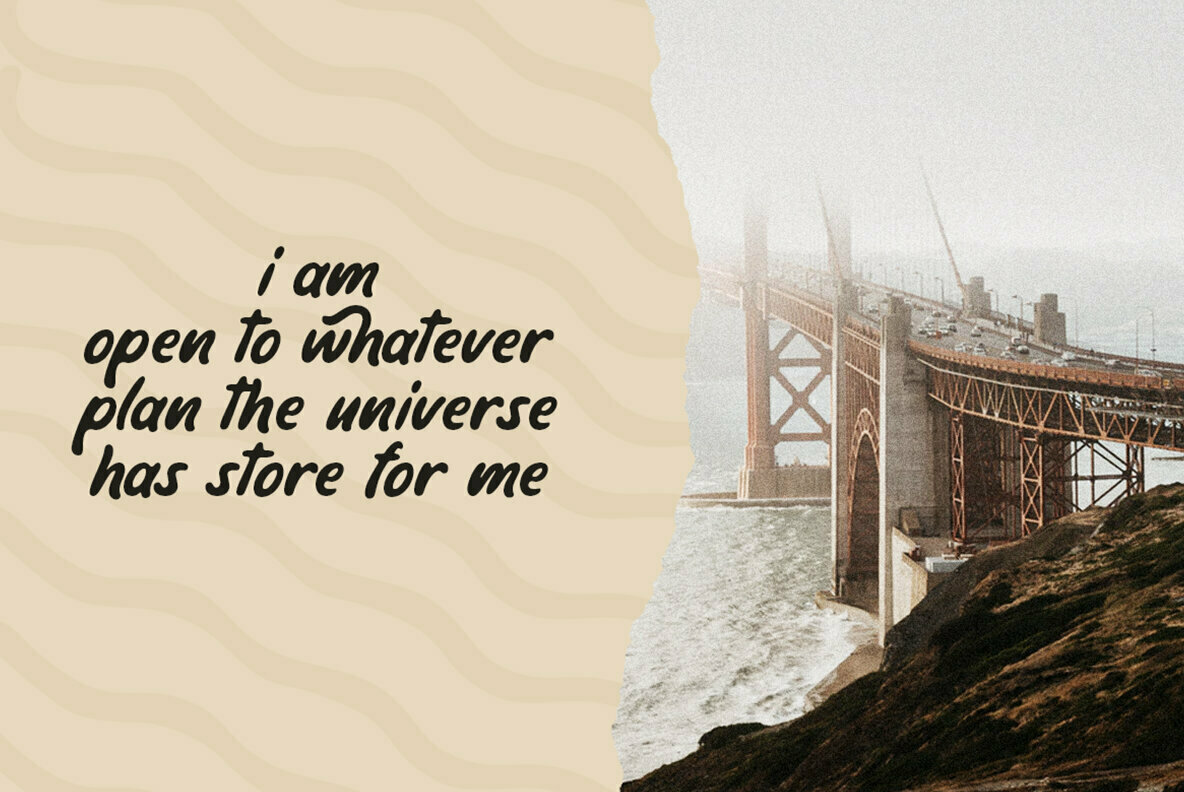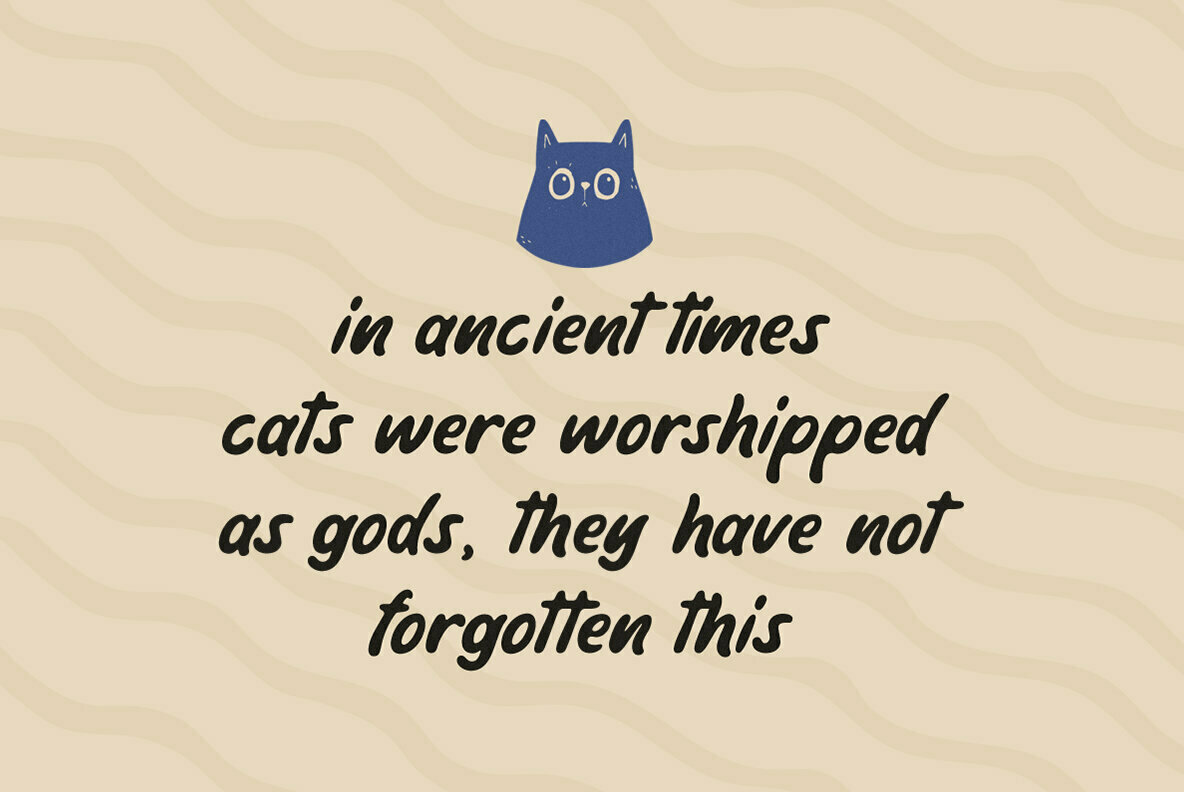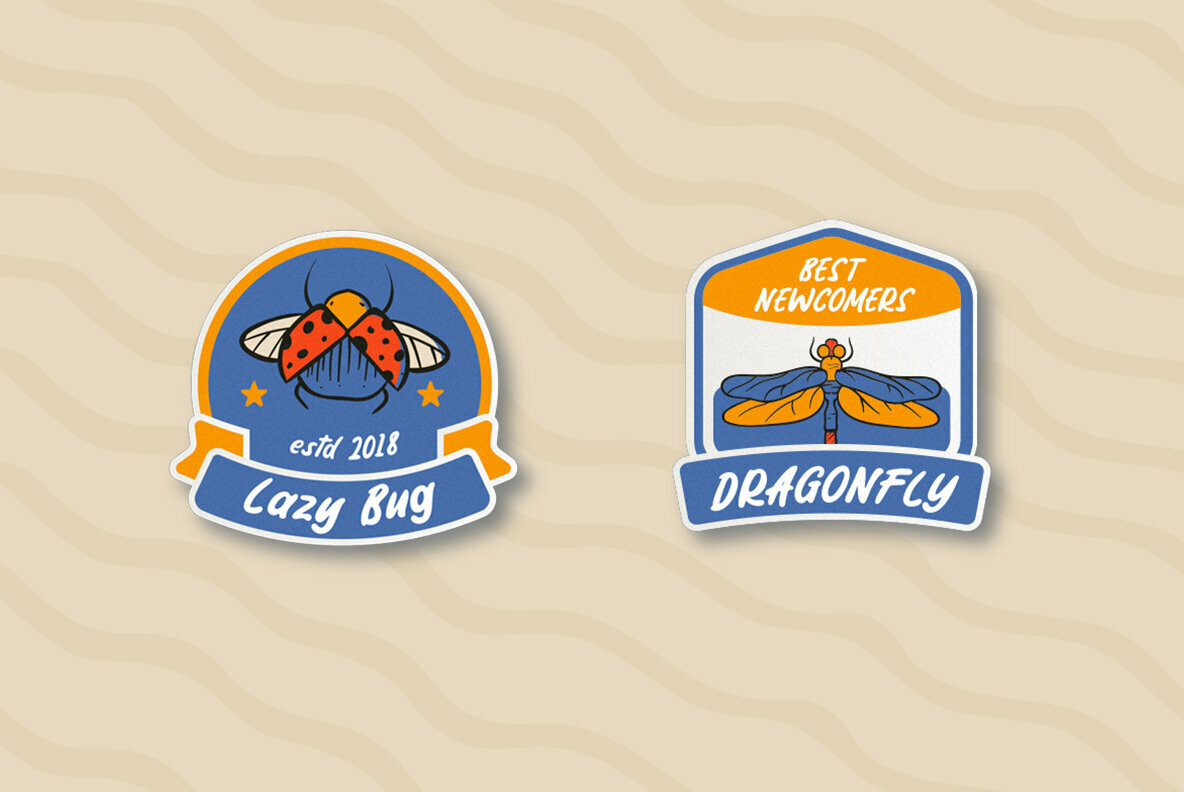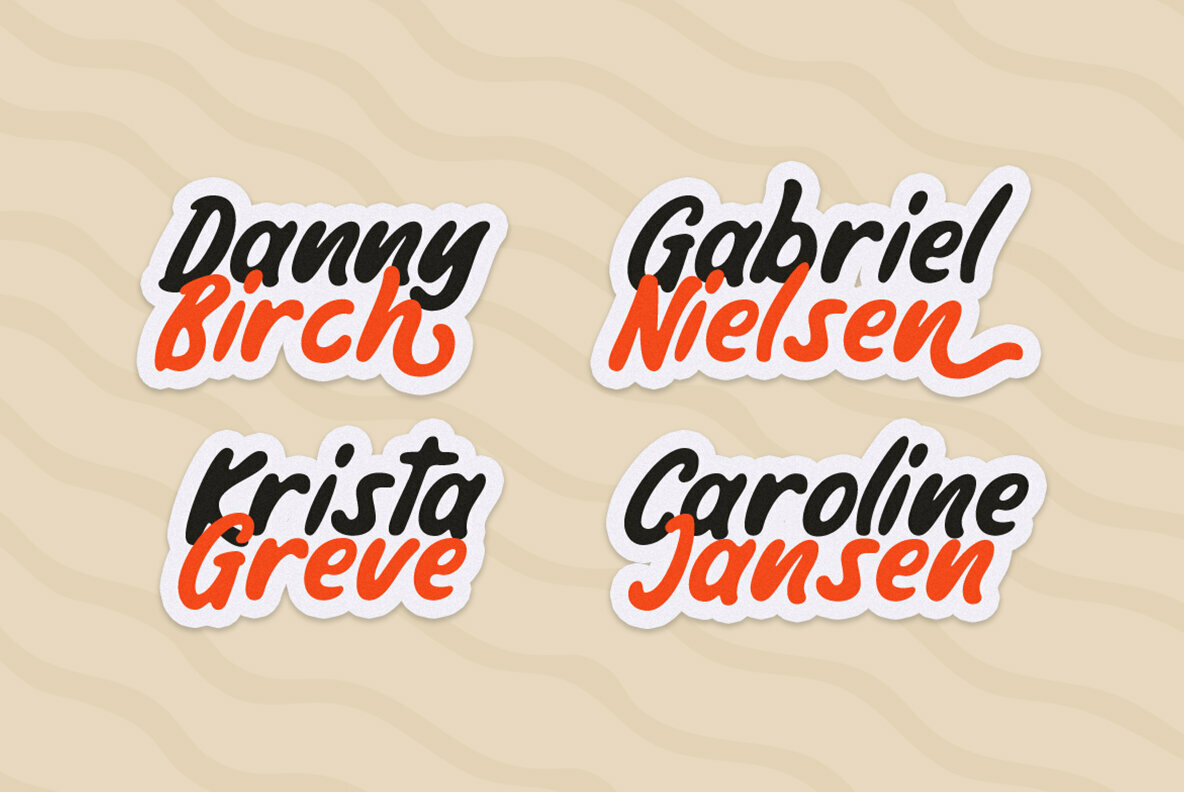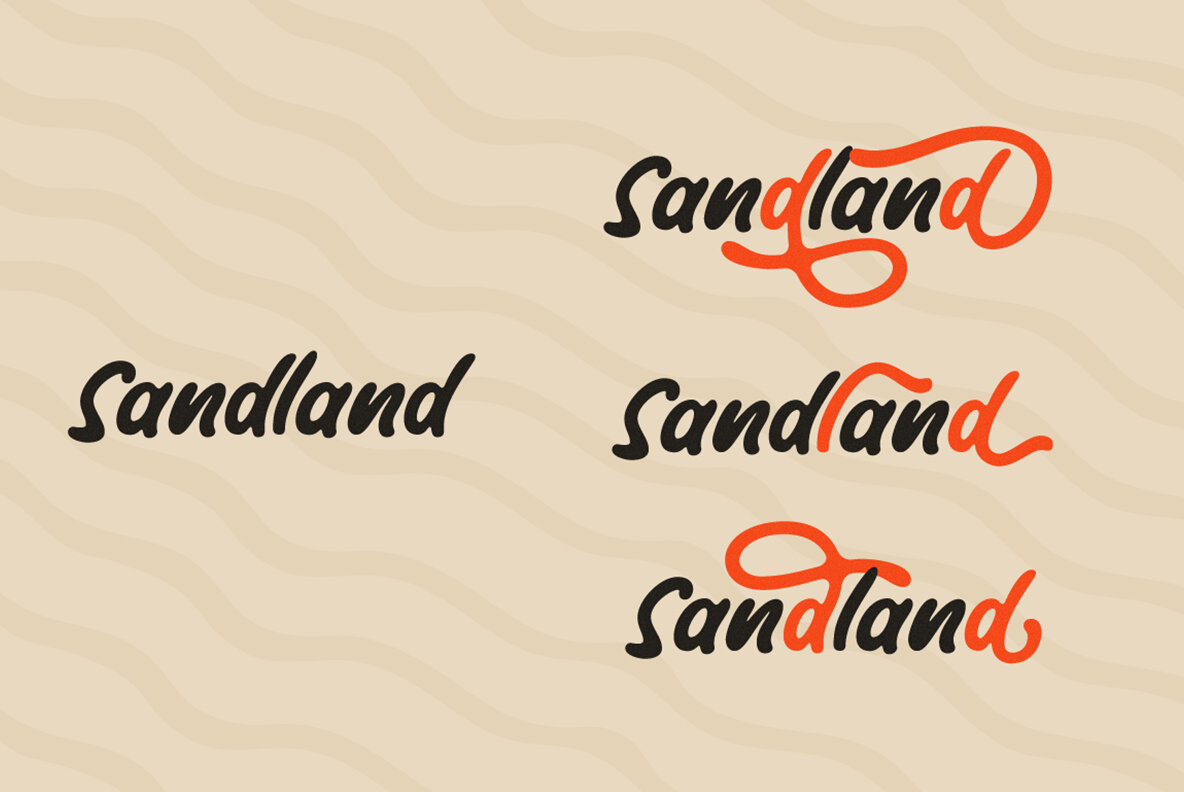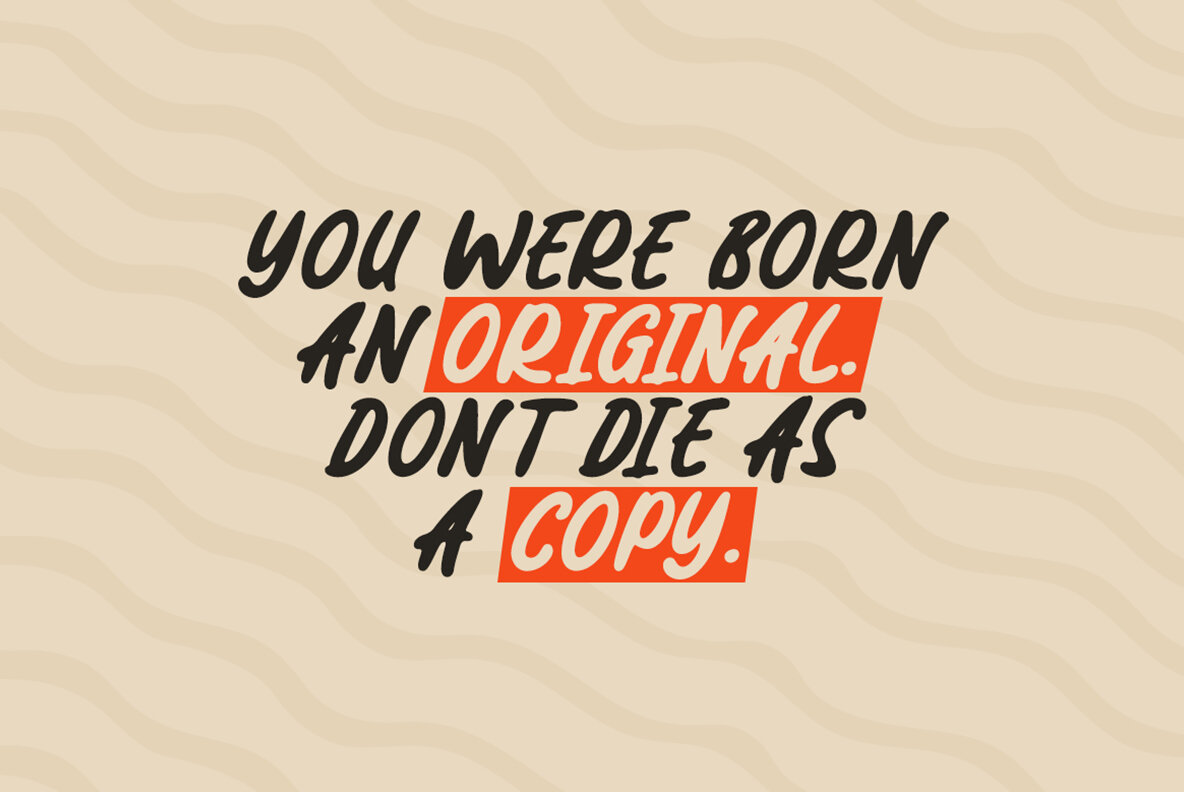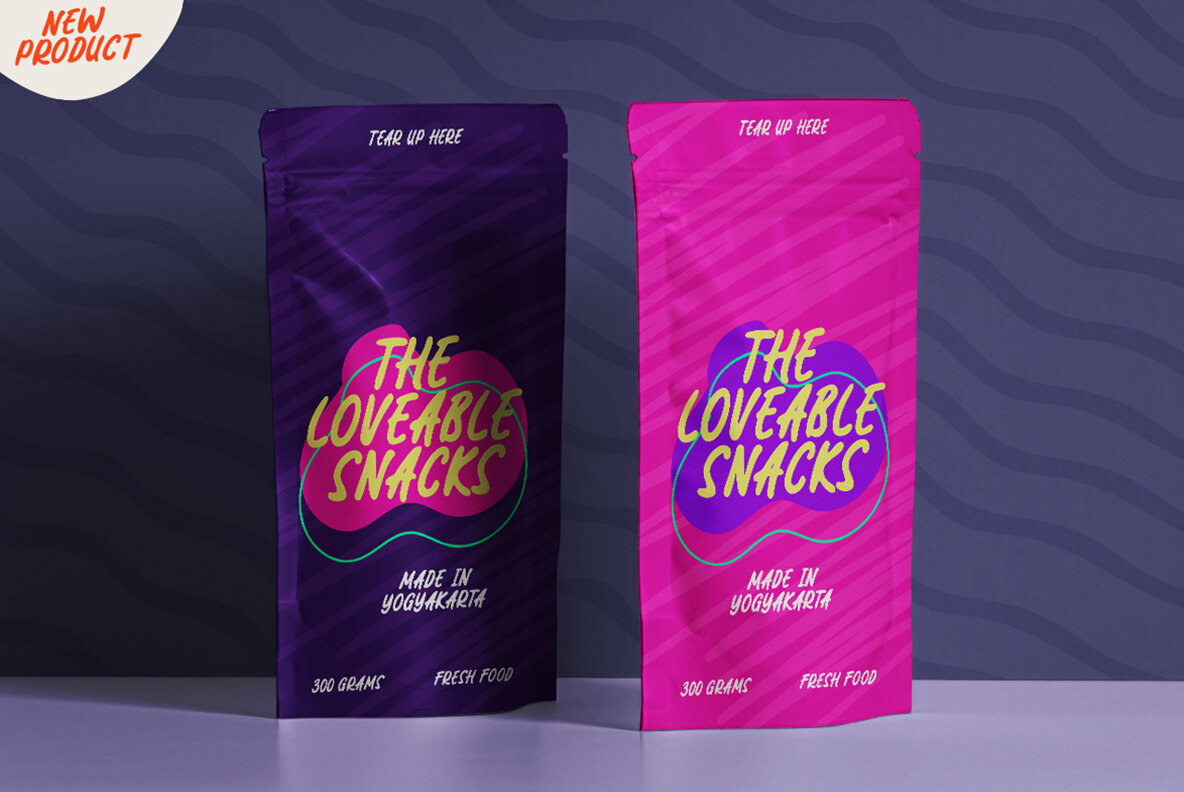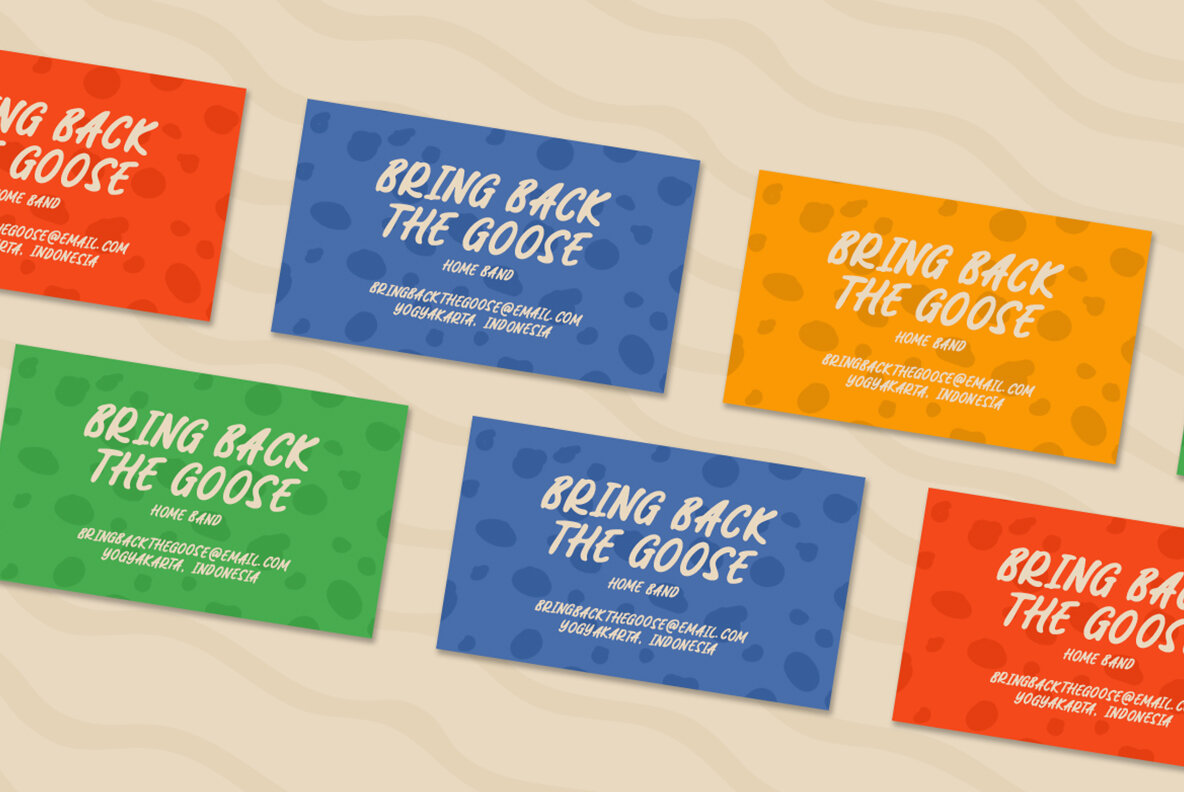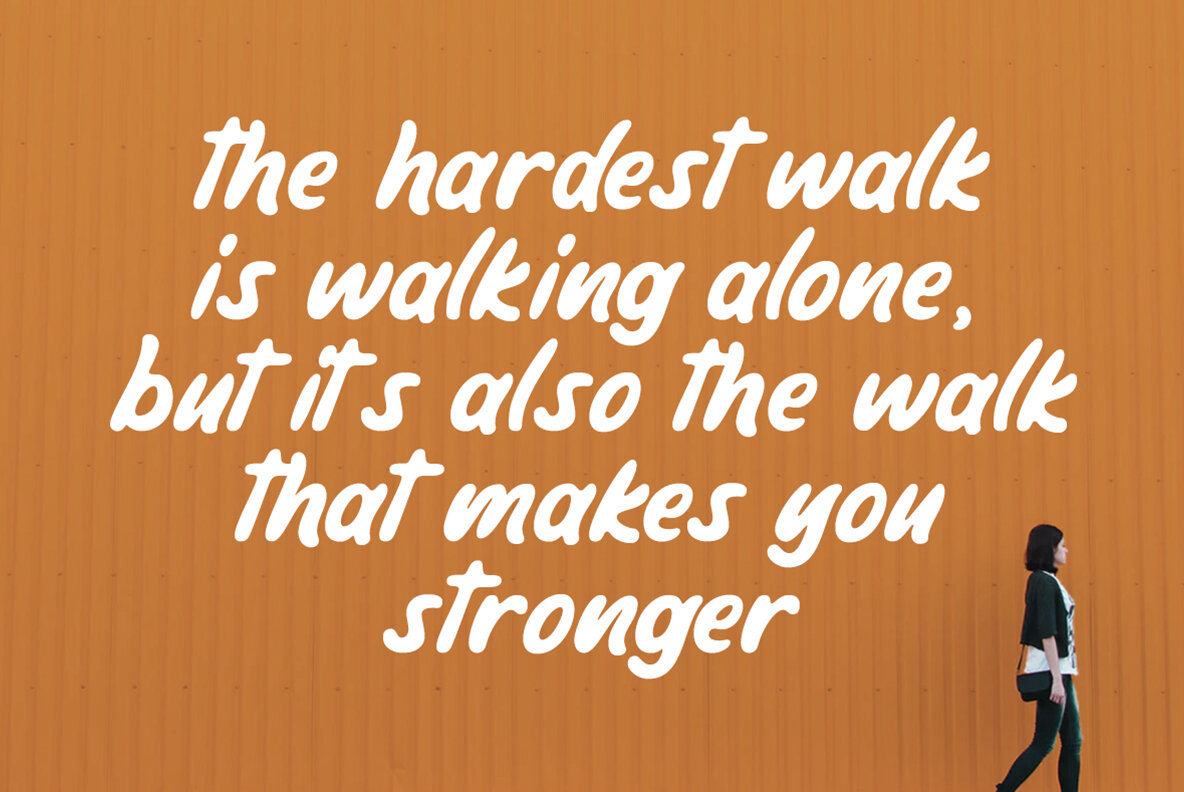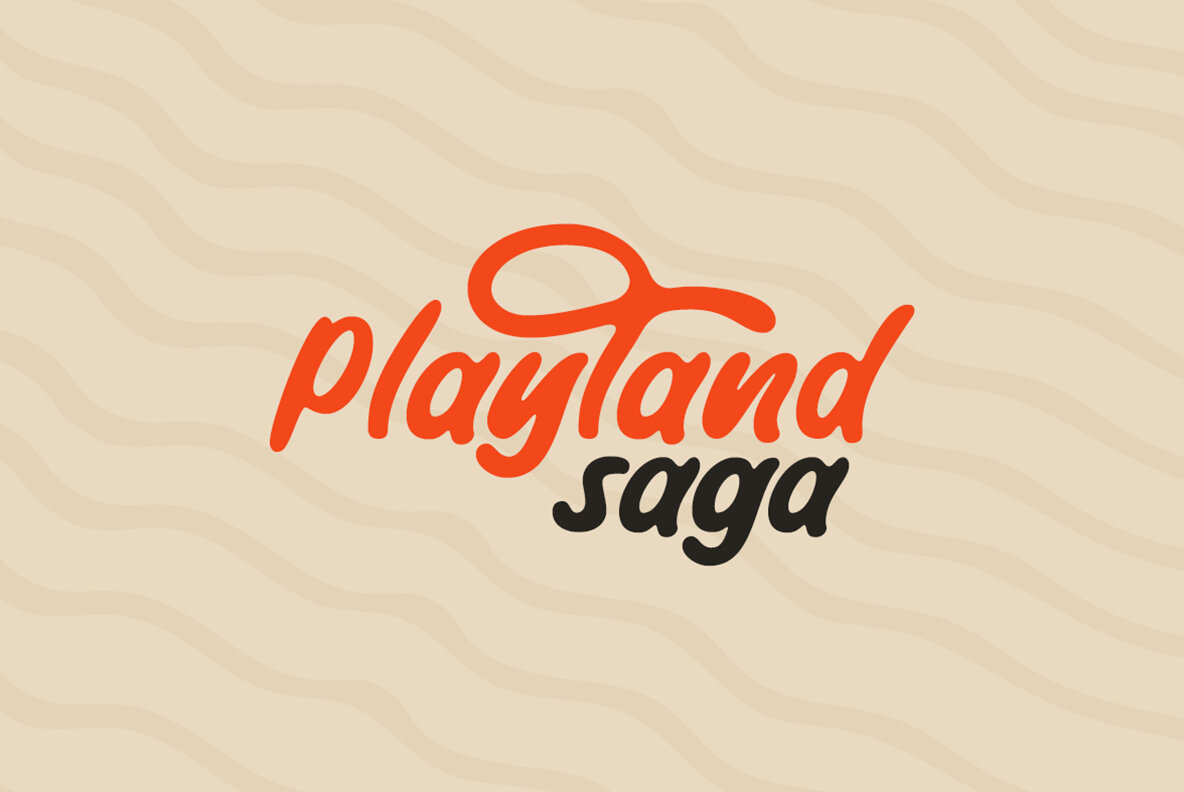
The Kindamana Font
The Kindamana Regular
Infuse your creative projects with whimsy and charm through the Kindamana handwritten display font. Expertly crafted for a delightful aesthetic, its playful curves and bubbly forms make it a perfect choice for a variety of applications. From quotes and branding to packaging and headlines, Kindamana brings a sprinkle of fun to every piece.The Kindamana: Charming Handwritten Display Font